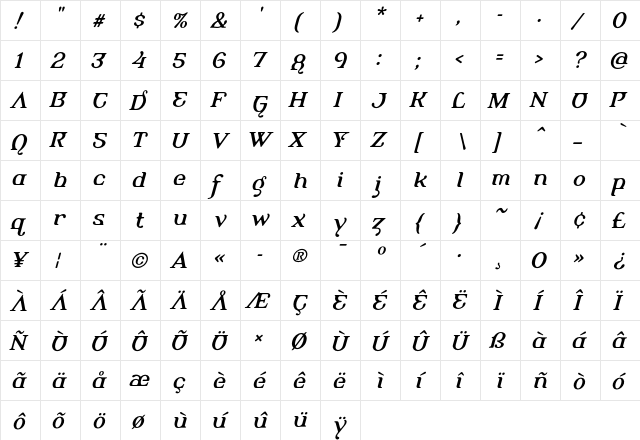
AlembicBeta-RegularItalicTwo Regular
Design Context for AlembicBeta-RegularItalicTwo Typeface
AlembicBeta-RegularItalicTwo is a composed and adaptable typeface that performs quietly and consistently across a wide range of design contexts. The slanted form adds forward momentum and visual energy.
Pro Tip: Try AlembicBeta-RegularItalicTwo for annotation and caption copy alongside an upright companion — the contrast in angle creates a dynamic but ordered typographic system.